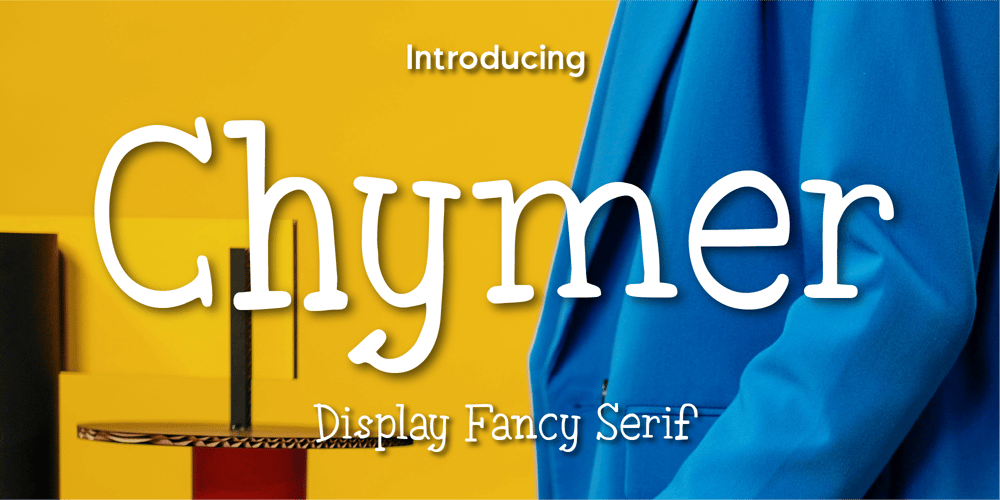
CF Chymer
CF Chymer font
CF Chymer Font Family was designed by Dede Kurniawan and published by Creatifont Studio. CF Chymer contains 2 styles and family package options. Chymer is a display fancy serif font that blends playful curves with a bold presence. Its distinctive letterforms and slightly exaggerated serifs give it a whimsical yet sophisticated charm, making it perfect for eye-catching headlines, branding, and creative projects. Whether used in editorial designs, fashion branding, or modern advertising, Chymer adds a unique personality that is both stylish and memorable. With its fun yet refined aesthetic, this font brings a fresh twist to classic serif typography.A SUMMARY OF WHAT’S INCLUDED:- Standard Character A-Z, a-z, 0-9, Punctuation & symbols- Regular and Italic- Works on PC & Mac- Simple installation- Accessible in Adobe Creative Suite (Ai, Ps, Id, etc.) even work on Microsoft Word.- PUA Encoded Characters – Fully accessible without additional design software.🌟If you come across any issues or notice anything we might have overlooked while using this product, please feel free to reach out to us. We greatly value your feedback as it helps us enhance and refine our products. Thank you!